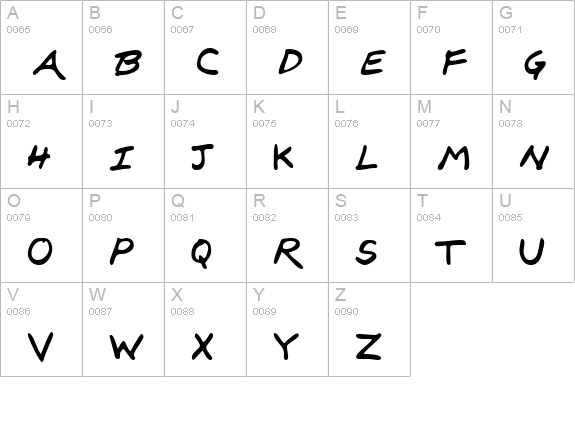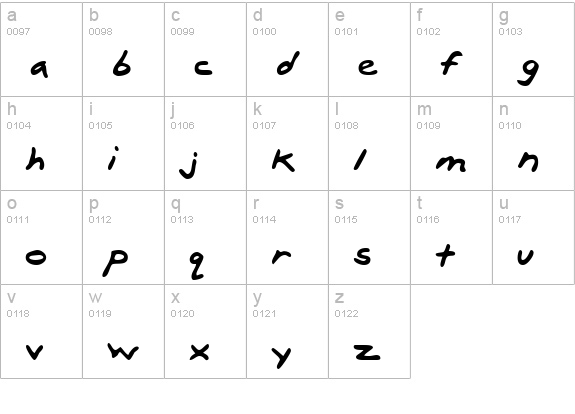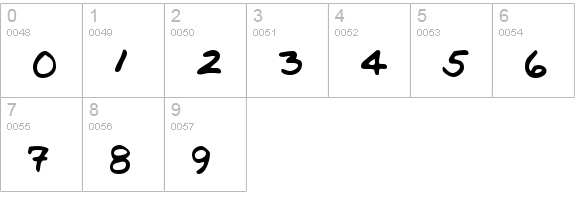
FletchersHand Regular Font Details
FletchersHand Regular is the standard, neutral variant in the FletchersHand typeface family \xE2\x80\x94 well suited to general body text, paragraphs, and standard typographic work.
FletchersHand Regular font is a charming and versatile typeface that exudes a warm and friendly vibe. With its hand-drawn appearance and elegant curves, this font is perfect for adding a personal touch to your designs. Whether you're creating invitations, cards, or branding materials, FletchersHand Regular will surely stand out. The best part? FletchersHand Regular font is freely available for download at FontsMarket.com. You can easily access this beautiful font and use it in your projects without any cost. So don't miss out on the opportunity to enhance your designs with the unique flair of FletchersHand Regular font. Download it today and let your creativity shine!